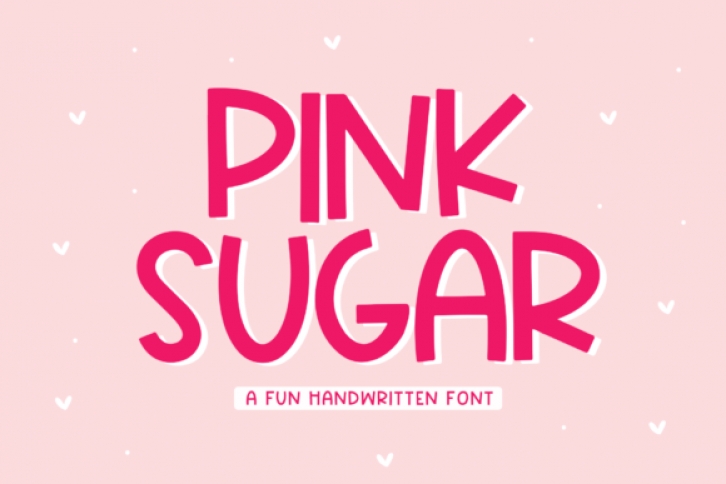
Pink Sugar is a cute handwritten font perfect for all of your craft projects. This font will look outstanding in any context, whether it’s being used on busy backgrounds or as a standalone headline!